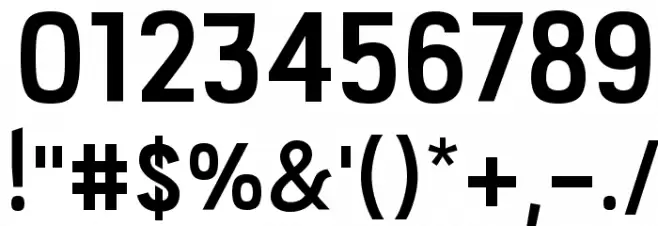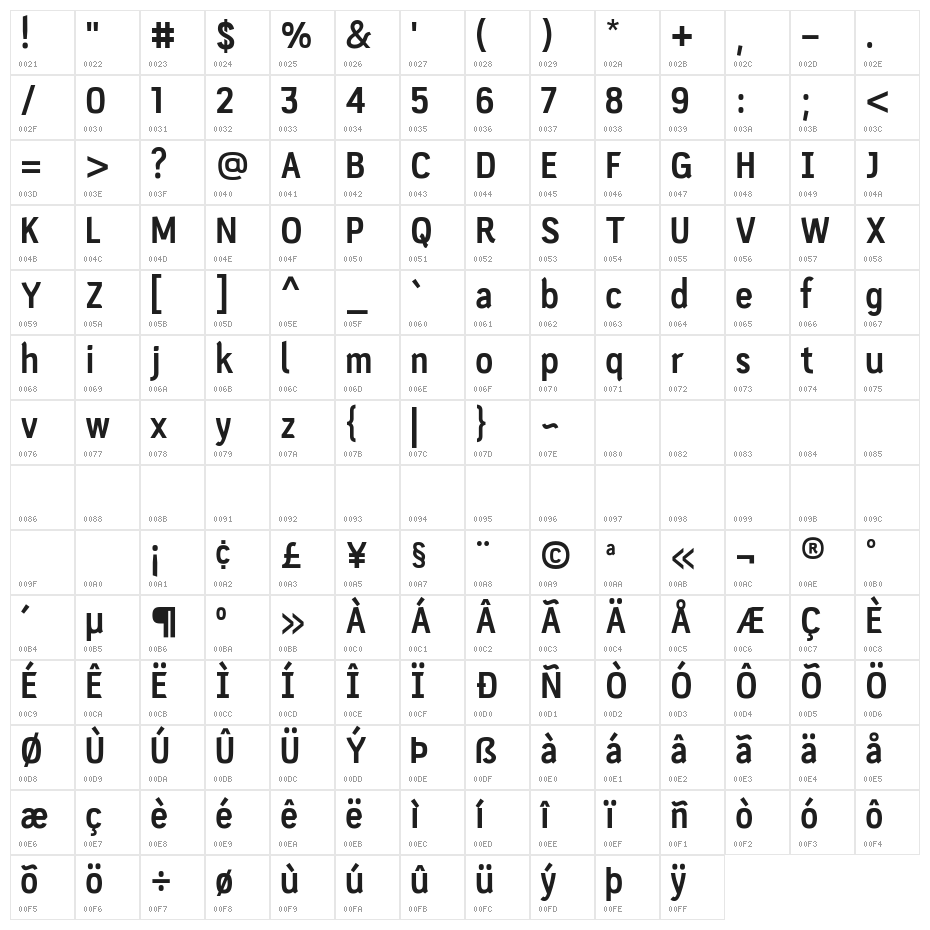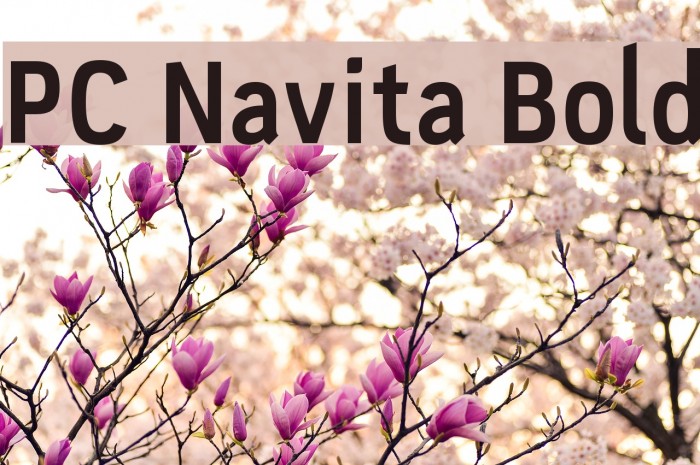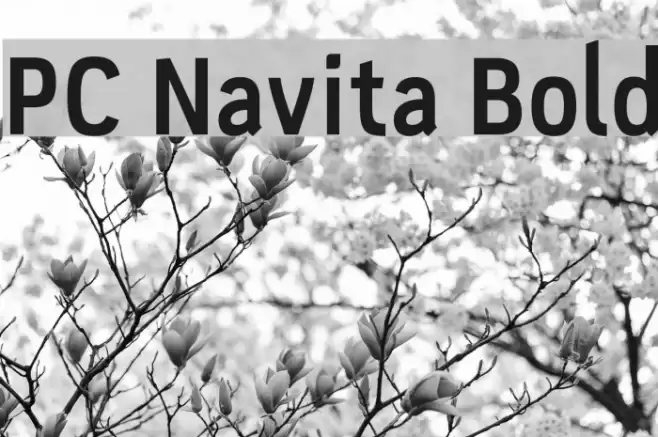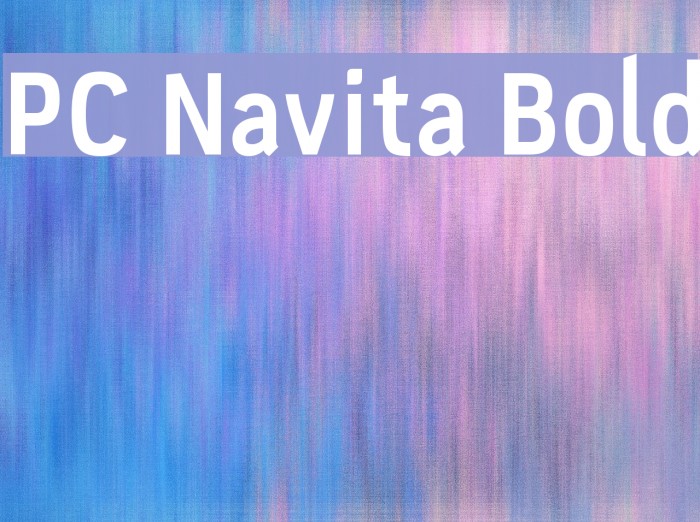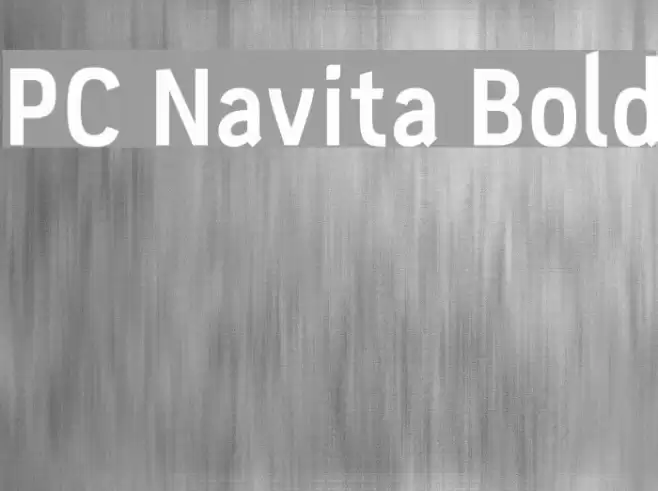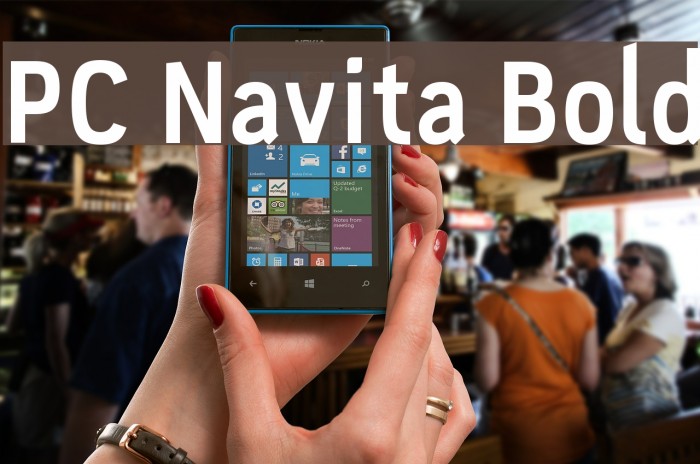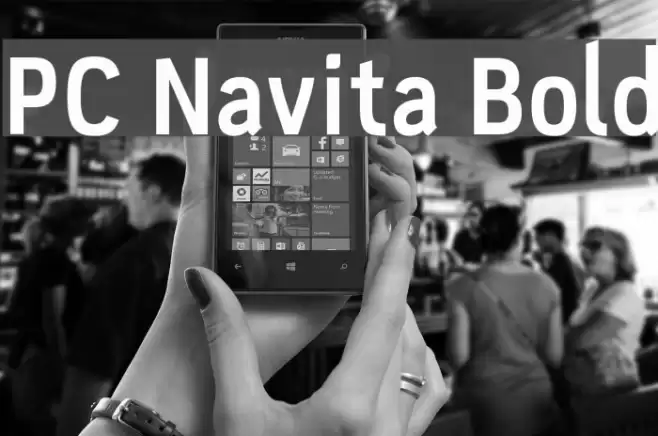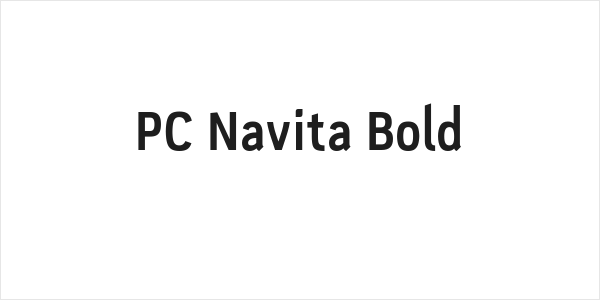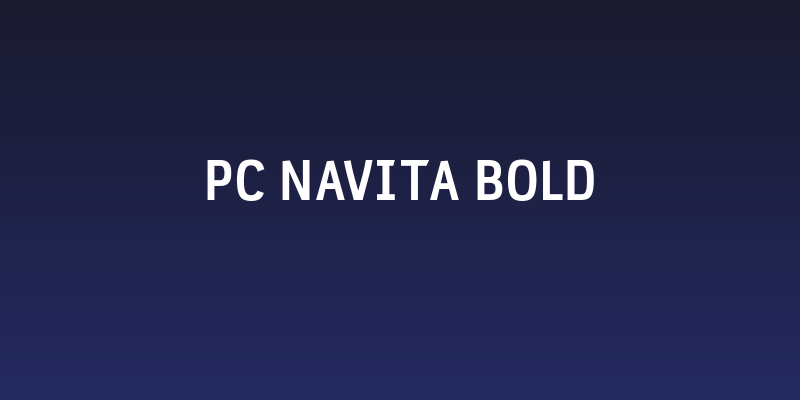
PC Navita Bold Font
PC Navita Bold Description
This typeface is a bold, sans-serif font characterized by its clean and modern appearance. The letters are well-defined with a strong presence, making it highly legible even at smaller sizes. The uppercase and lowercase letters maintain a consistent weight, providing a uniform look across all characters. The numerals are clear and distinct, ensuring readability in numerical data. Special characters are designed to complement the overall style, maintaining the bold and straightforward aesthetic. This font is versatile, suitable for a variety of design applications.
| Proposed Projects | Ideal for branding, headlines, posters, and digital content where a strong, modern impression is needed. |